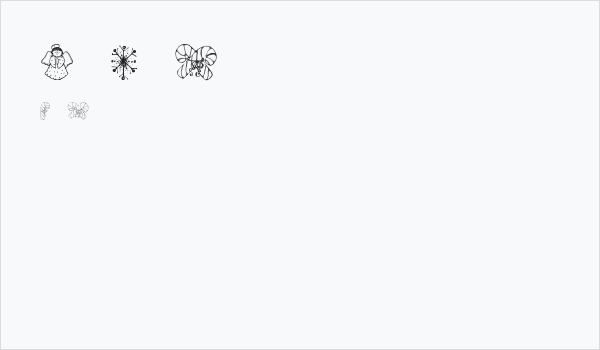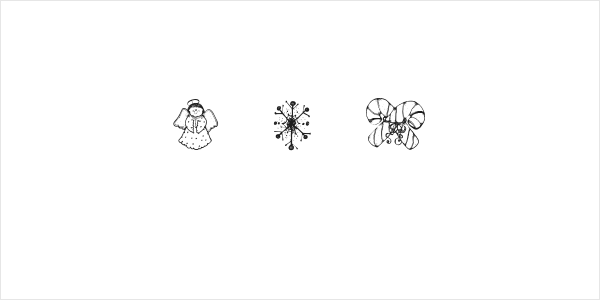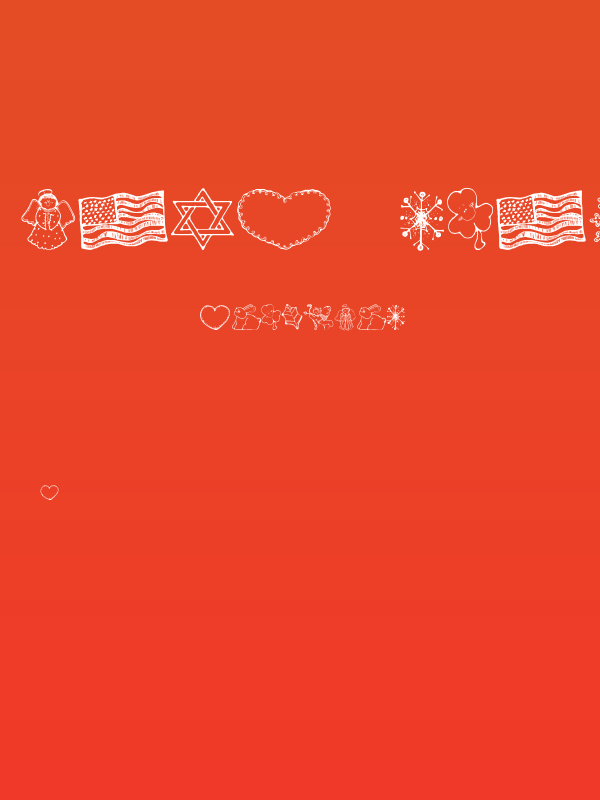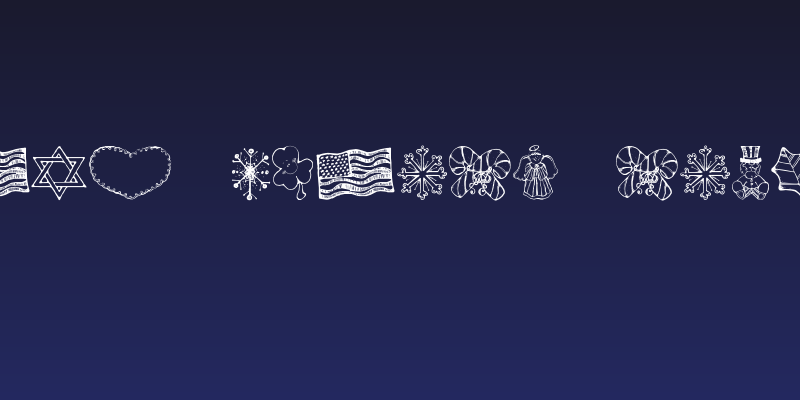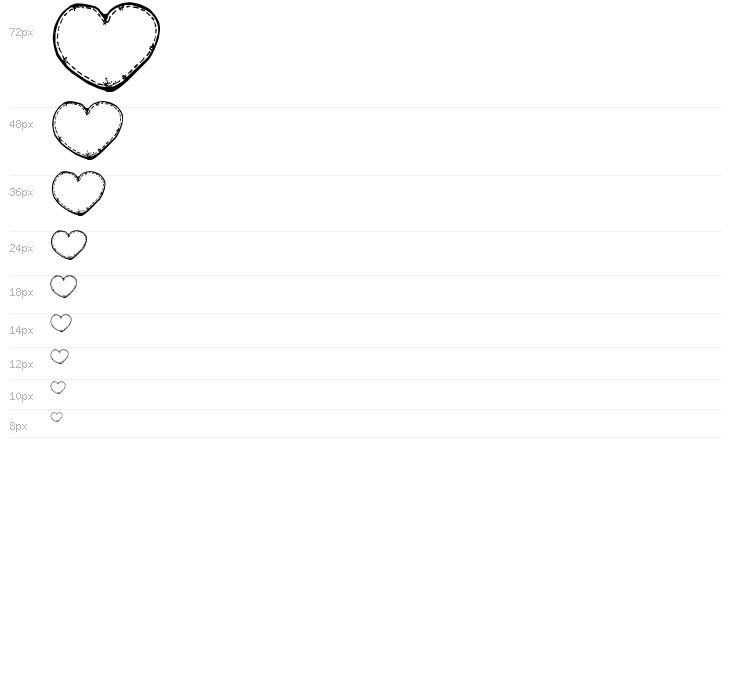
Blu's Holiday Dings Font
Blu's Holiday Dings Description
This collection features a variety of holiday-themed dingbats, each representing different festive symbols and characters. The designs include angels, candy canes, stars, snowflakes, and other holiday motifs. Each symbol is intricately detailed, capturing the essence of various celebrations such as Christmas, Easter, and national holidays. The style is playful and decorative, making it suitable for adding a festive touch to projects. The symbols are consistent in their artistic style, providing a cohesive look across different themes.
| Proposed Projects | Ideal for holiday greeting cards, festive decorations, event invitations, and seasonal marketing materials. |